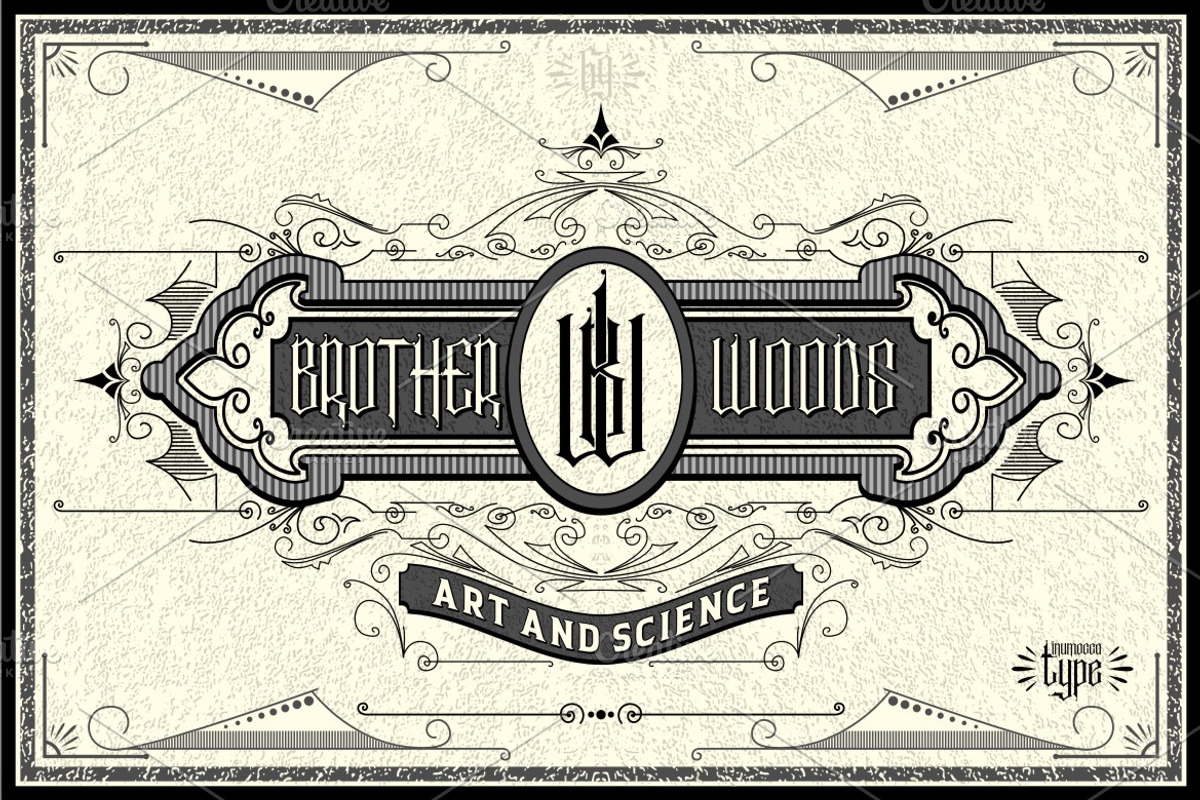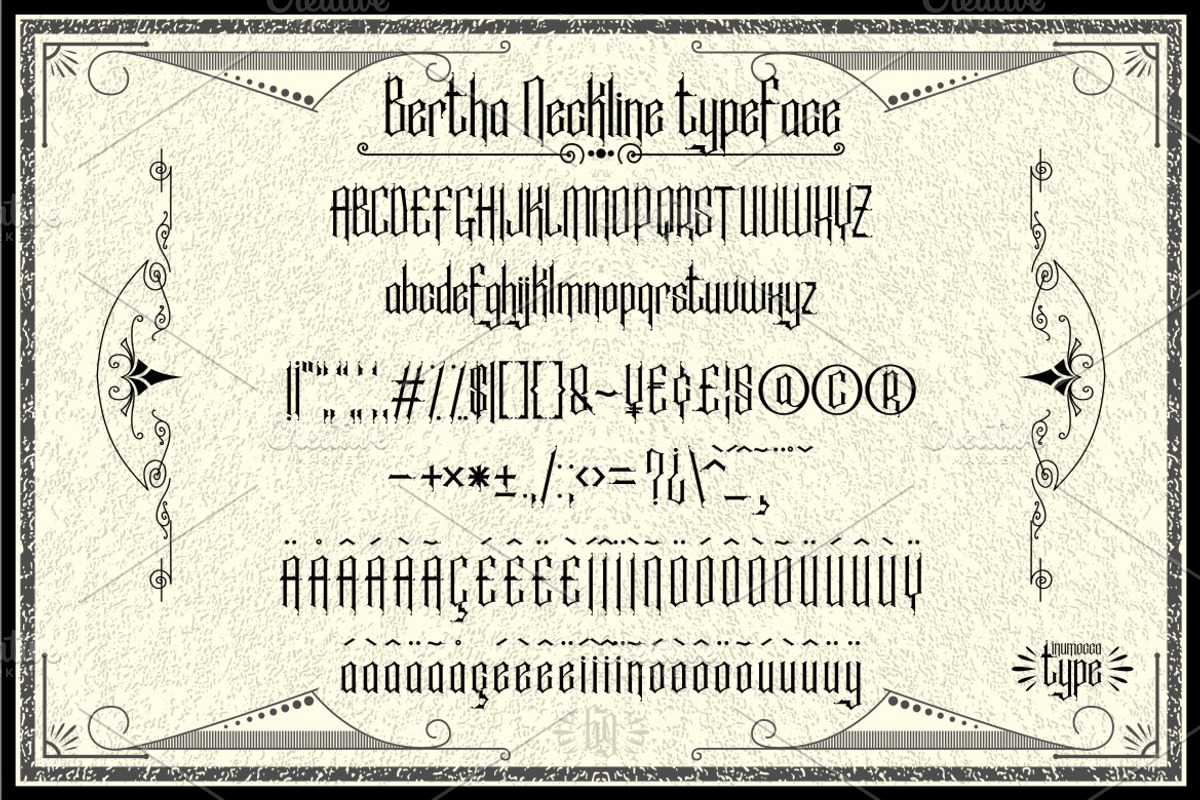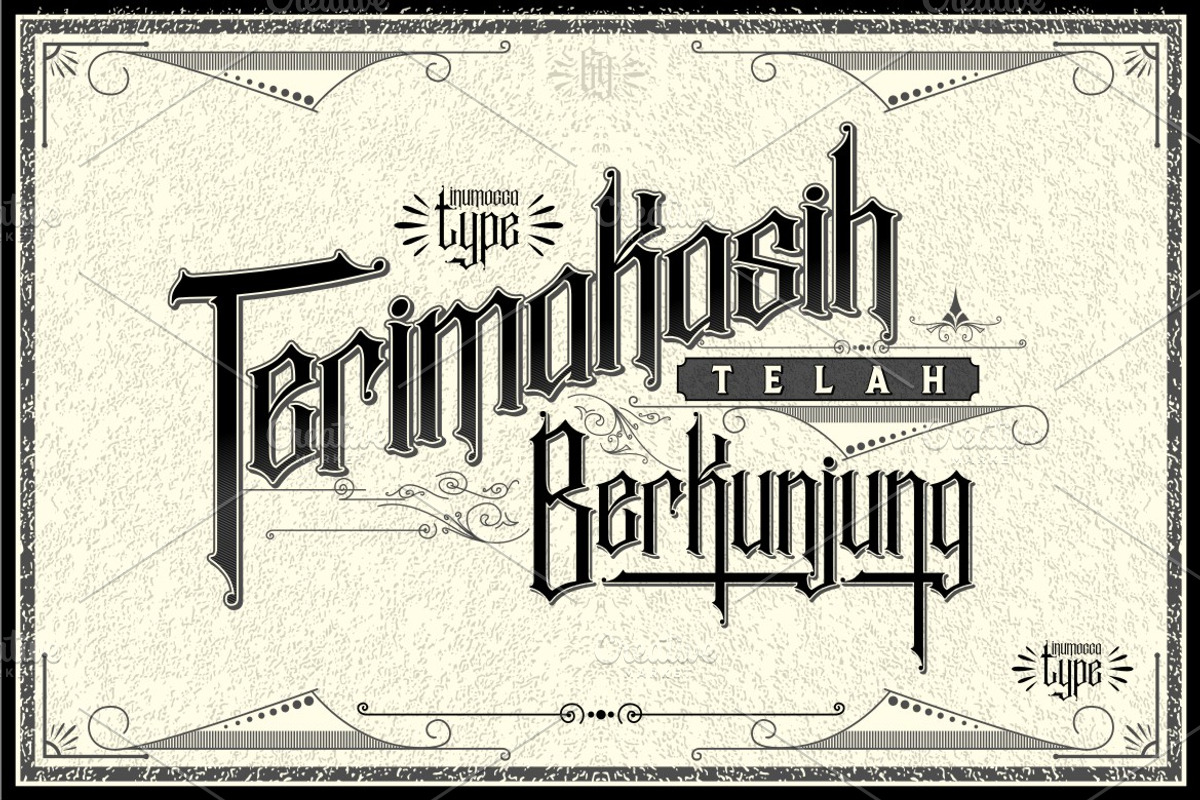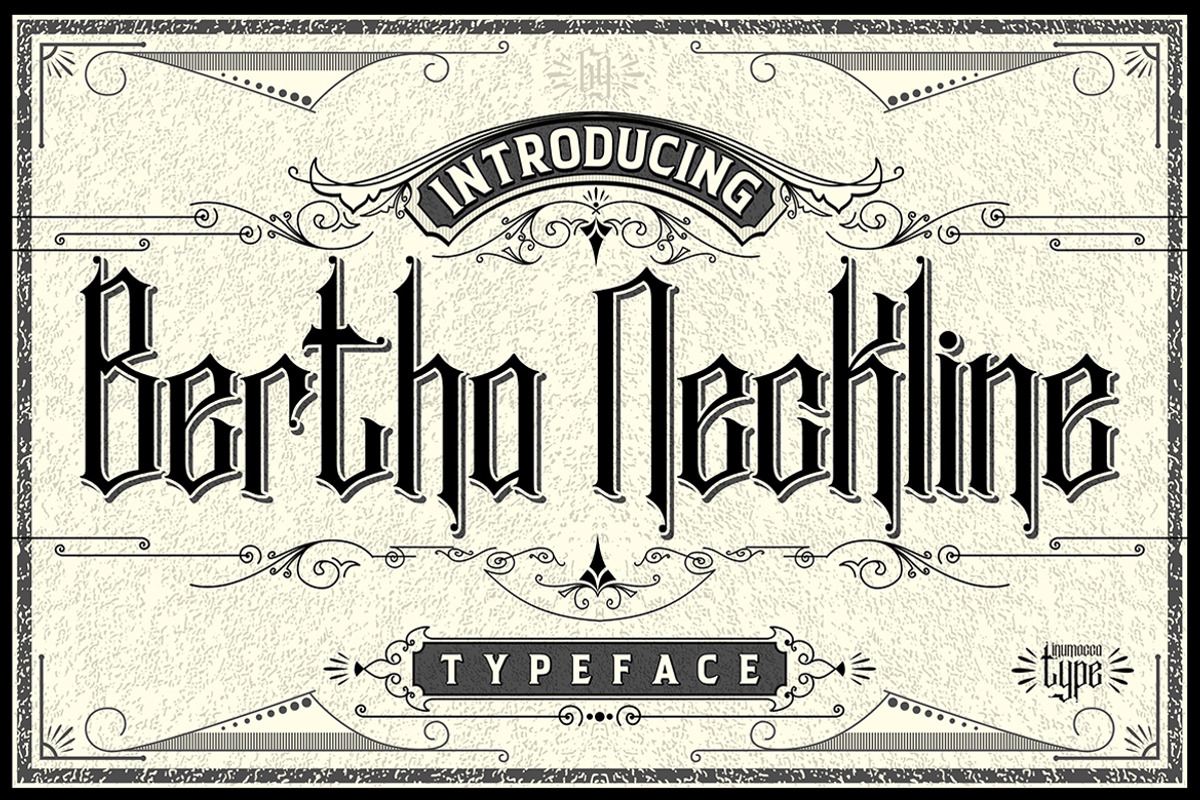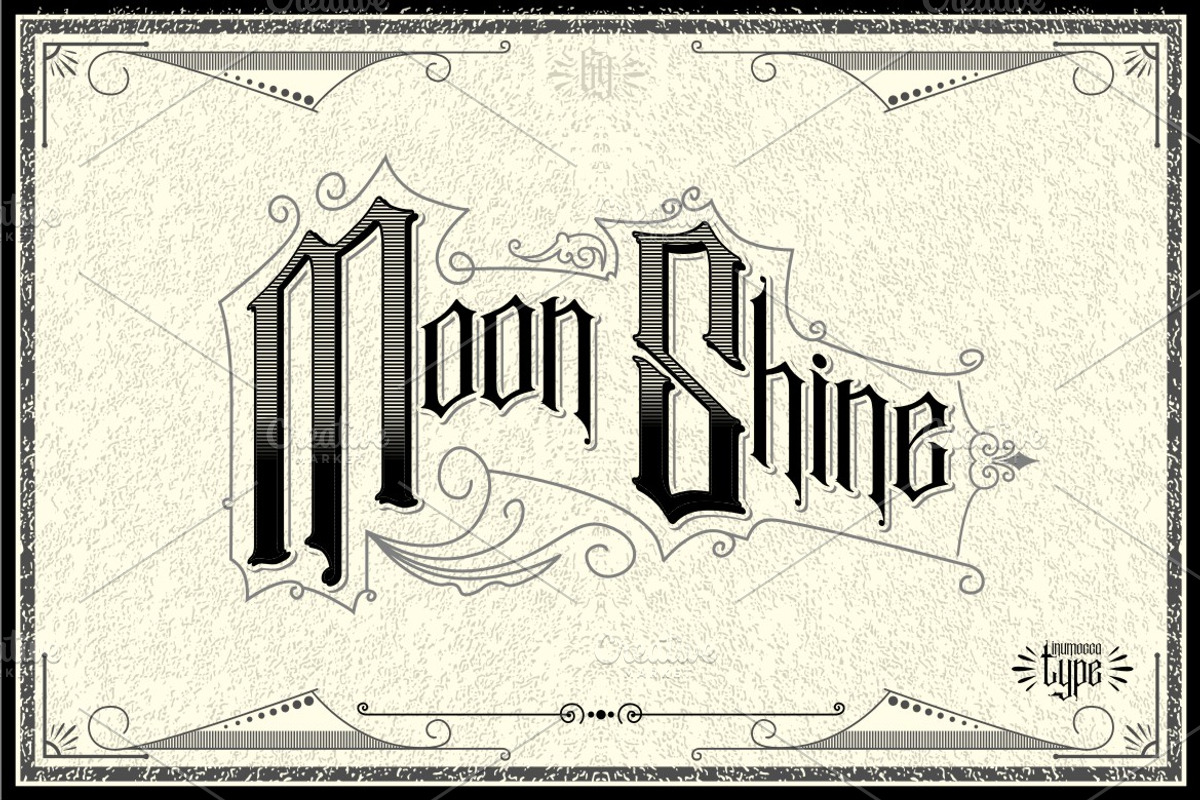
Bertha Neckline
Bertha Neckline typeface, its great victorian style, vintage taste and unique glyph, play with ornament and touch your feel. great for your project,like a logos, typography, poster or something u like.
- Unique glyphs
- Multilingual Characters
- UPPERCASE
- Numeric
- Symbol
- Punctuation Character